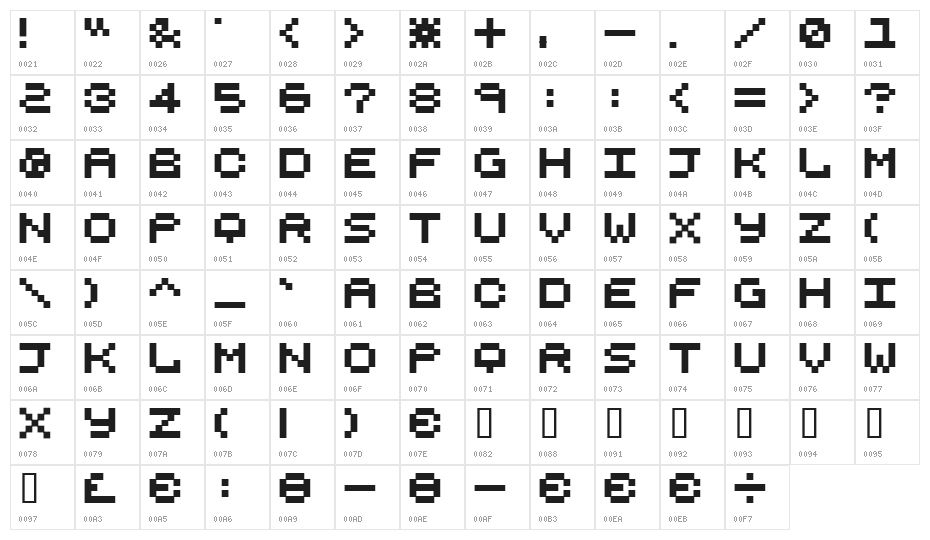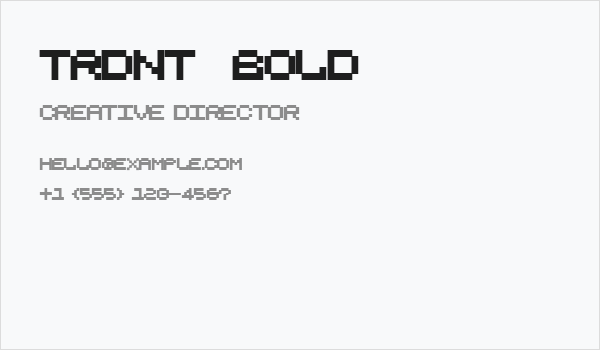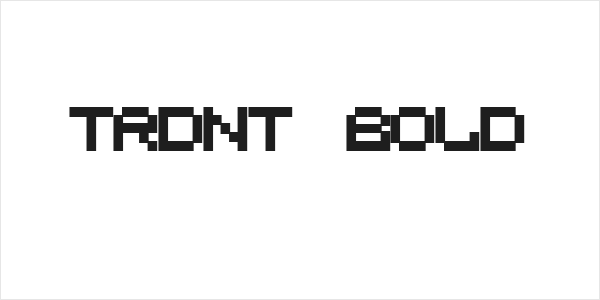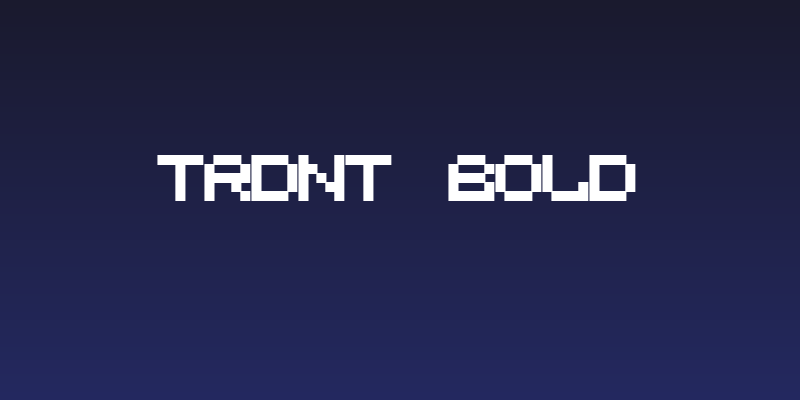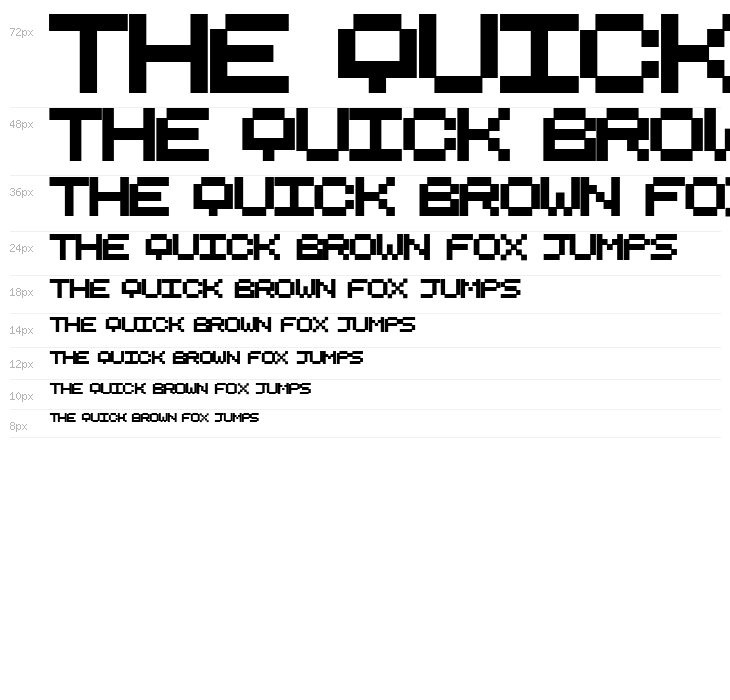
trdnt Bold Font
trdnt Bold Description
This font features a bold, pixelated design reminiscent of early digital displays and retro video games. Each character is constructed with a grid-like precision, giving it a blocky and geometric appearance. The uppercase and lowercase letters maintain a consistent height, contributing to a uniform look across the text. Numbers and special characters follow the same pixelated style, ensuring a cohesive visual experience. The font's distinct style makes it highly recognizable and suitable for projects that require a nostalgic or tech-inspired aesthetic.
| Overall Style | Retro, Digital |
| Use Case | Headlines, Logos, Digital Art |
| Proposed Projects | Ideal for video game graphics, retro-themed designs, digital art projects, and tech-related branding. |